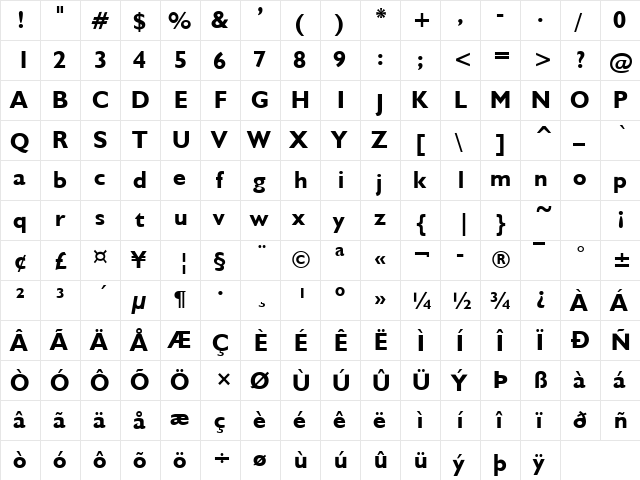
Gibraltar Bold
Design Context for Gibraltar Typeface
Gibraltar takes a measured approach to typography — its balanced proportions and neutral character make it a reliable workhorse for both digital and print work. Its bold stroke weight gives it real presence on the page.